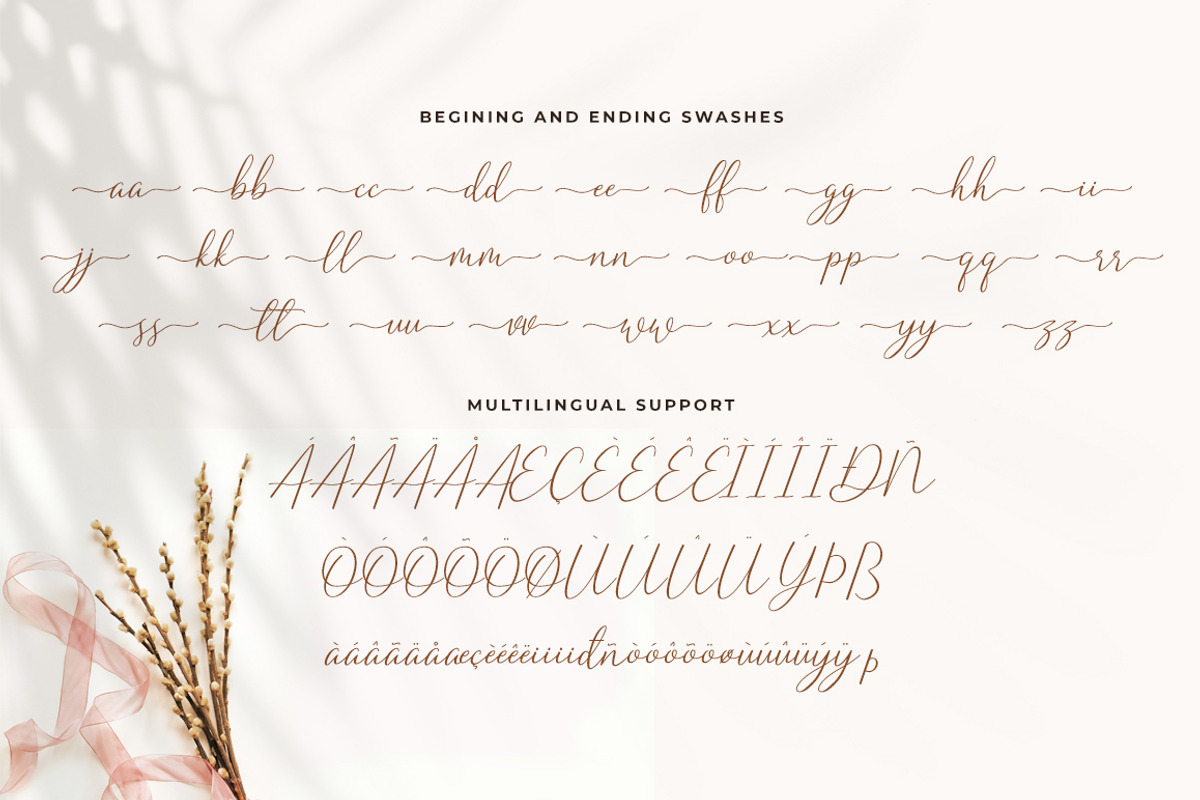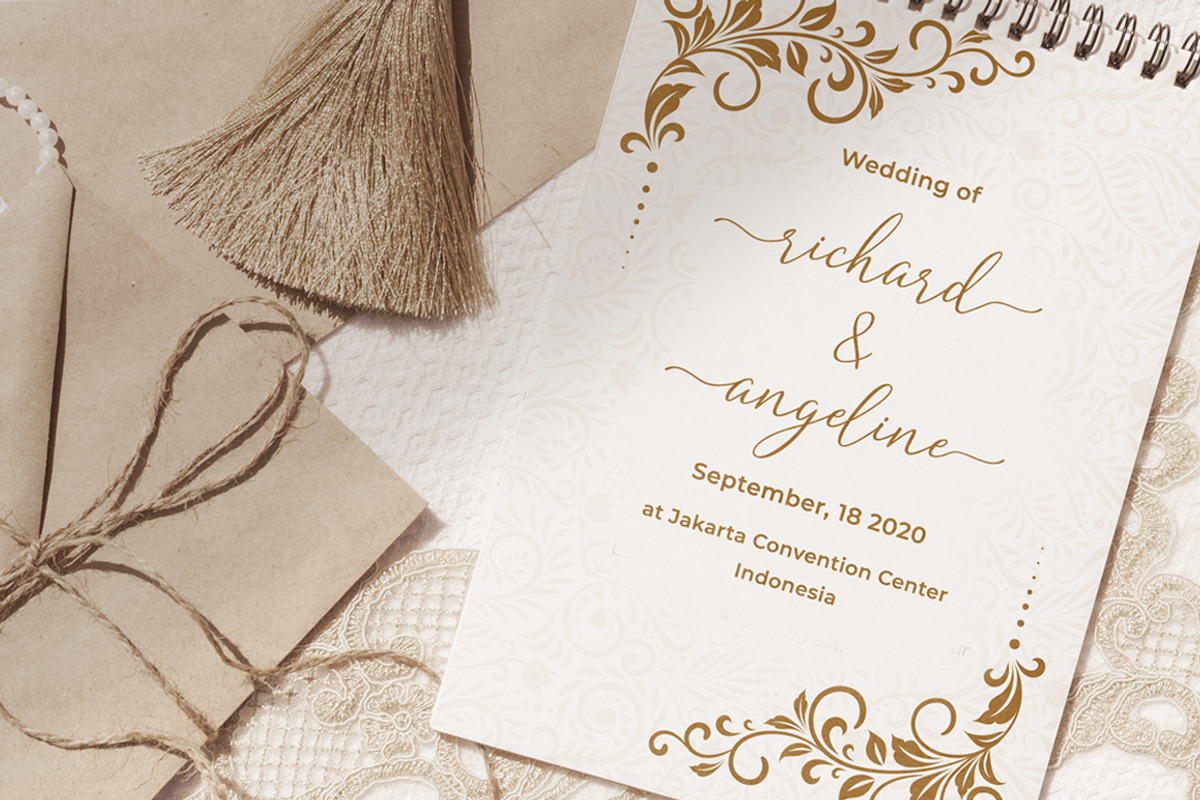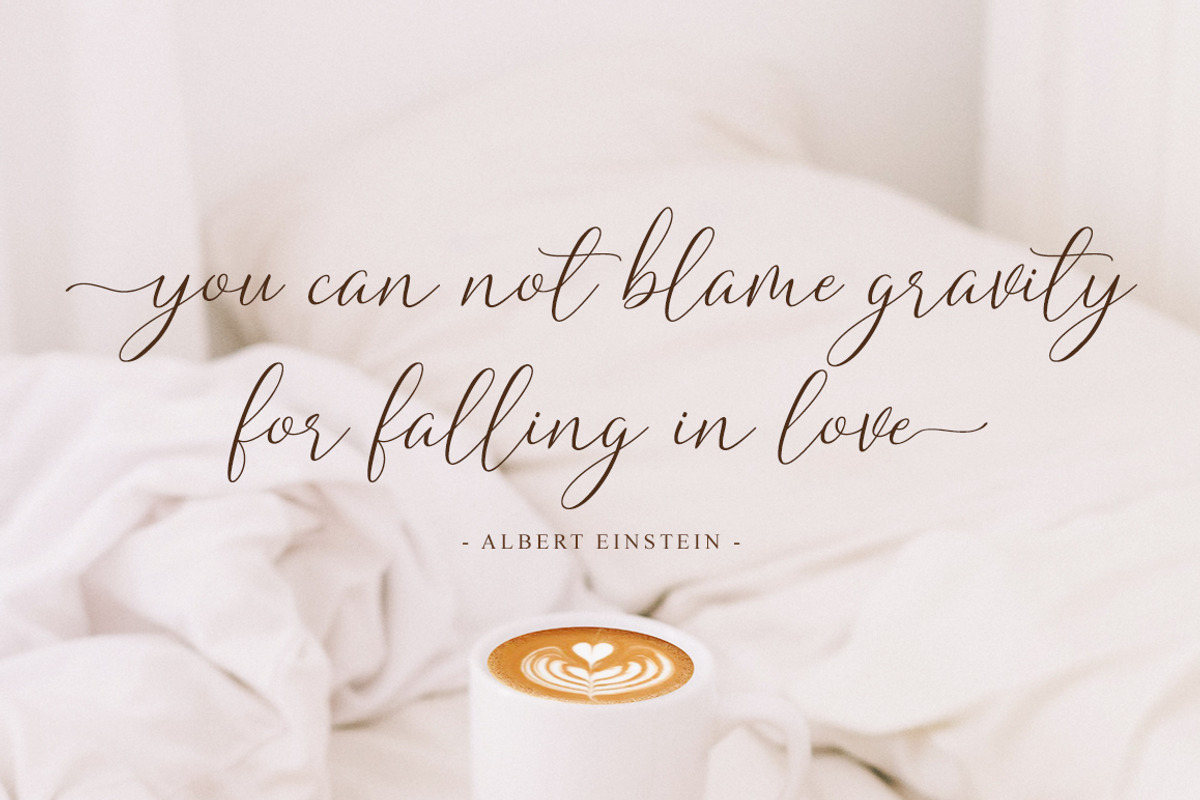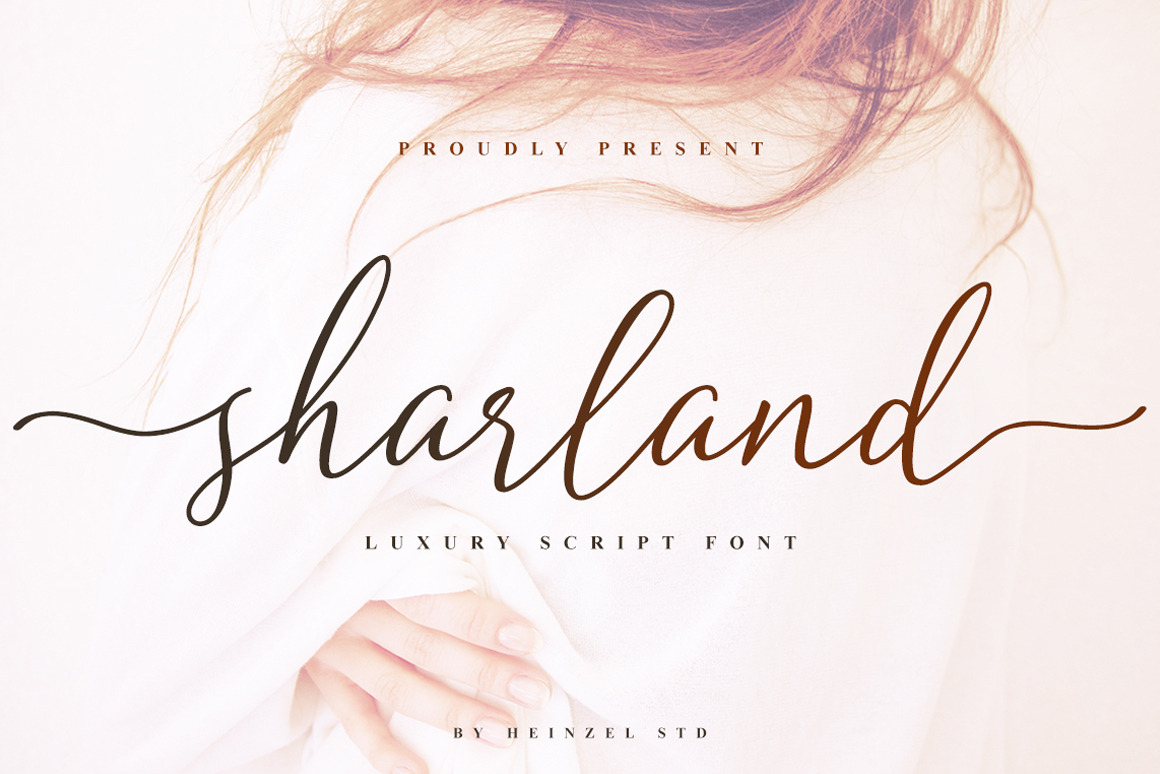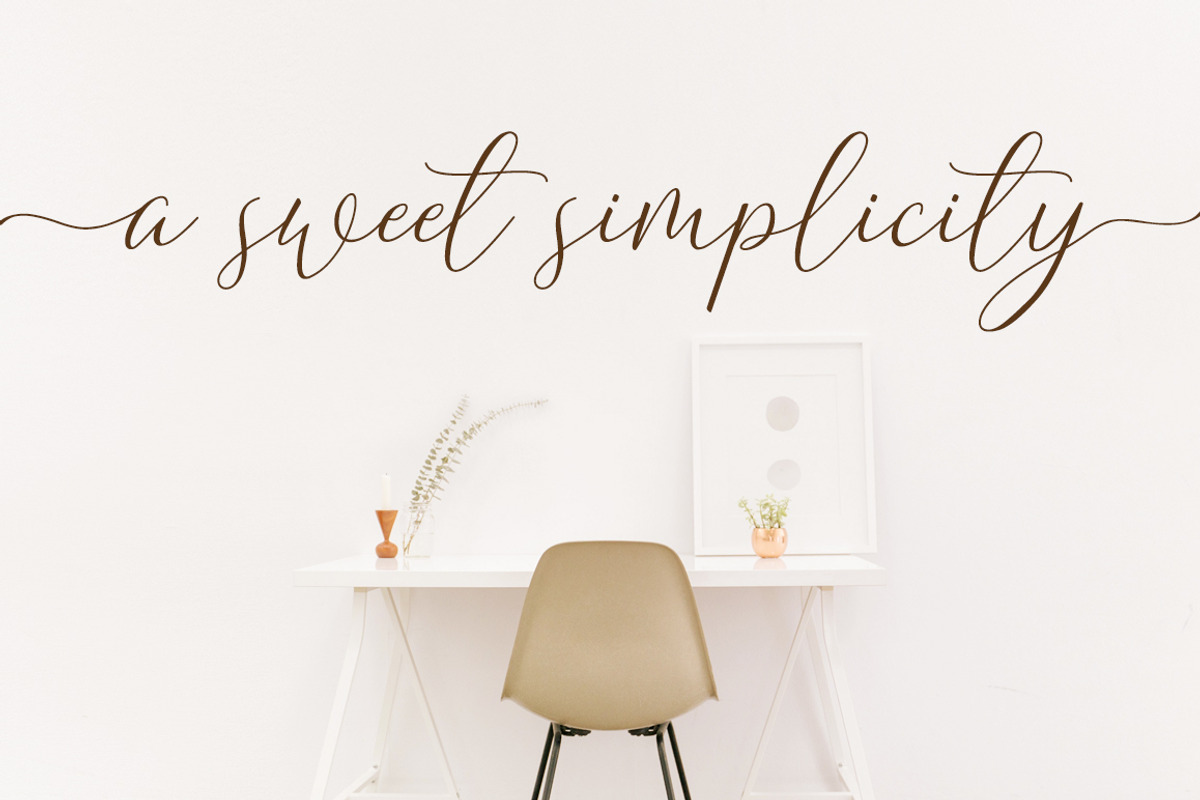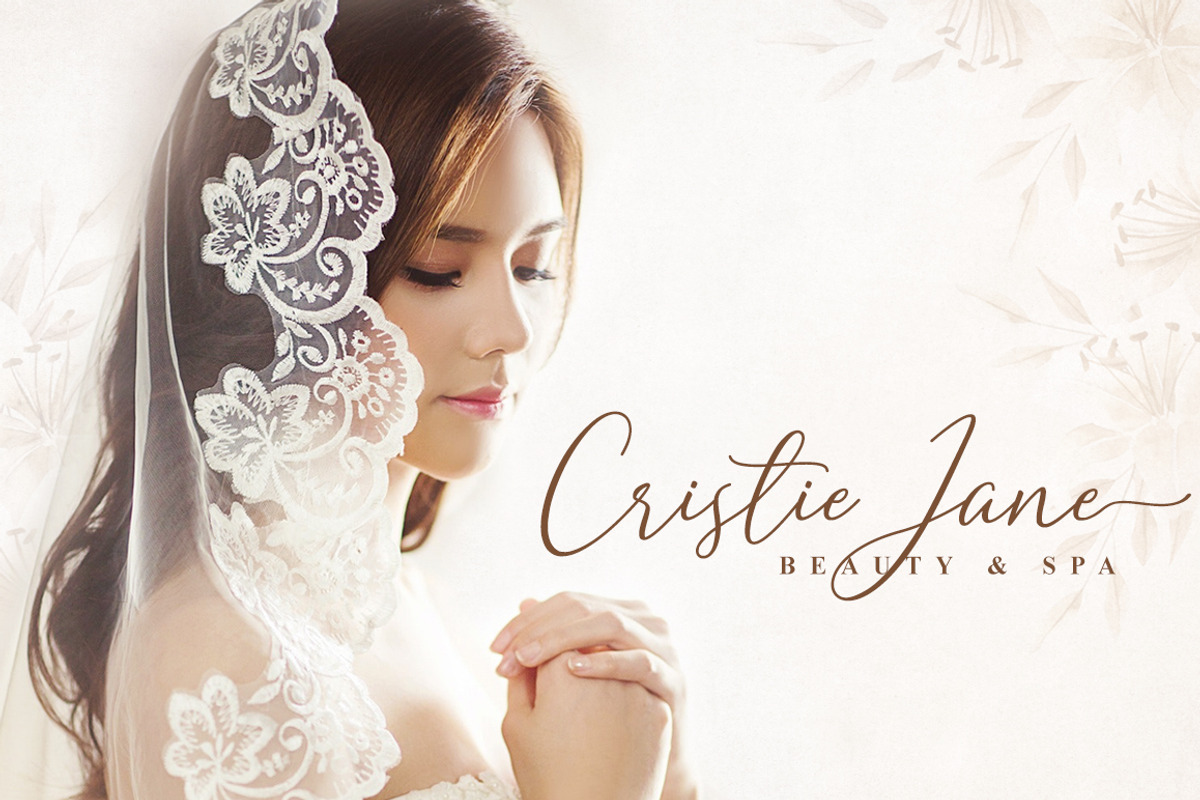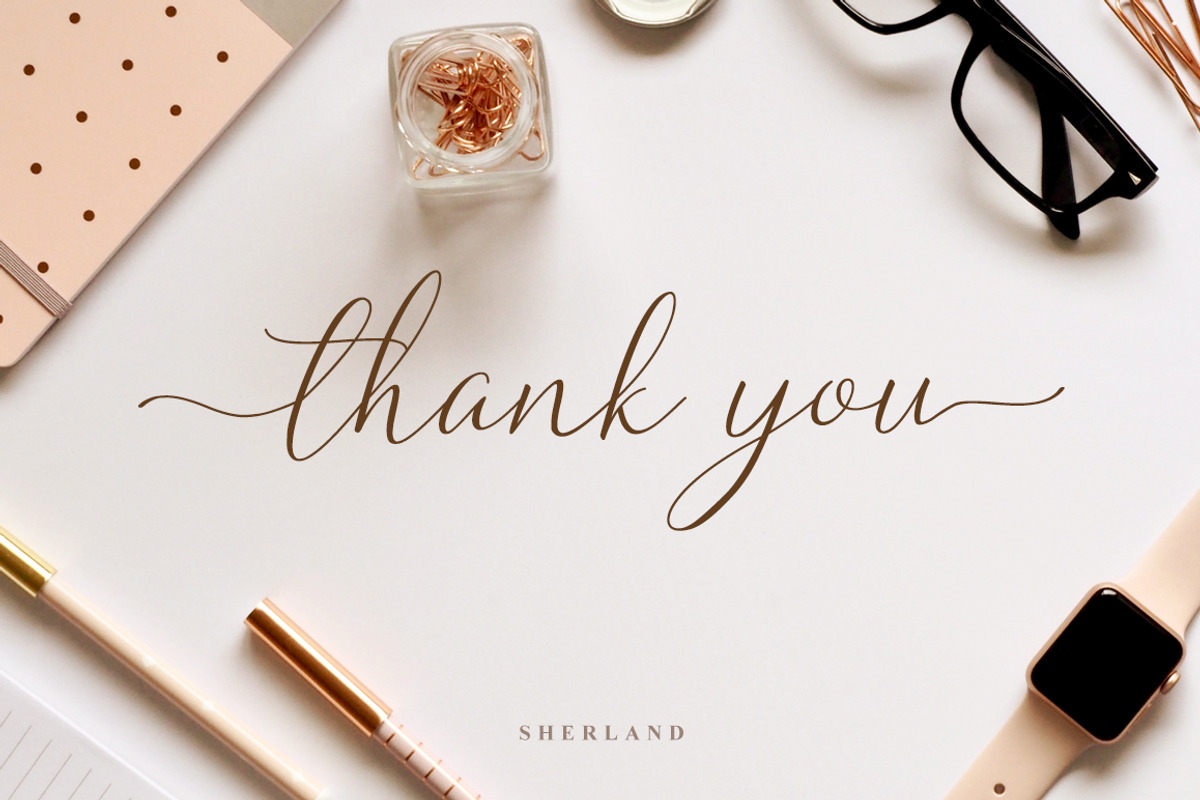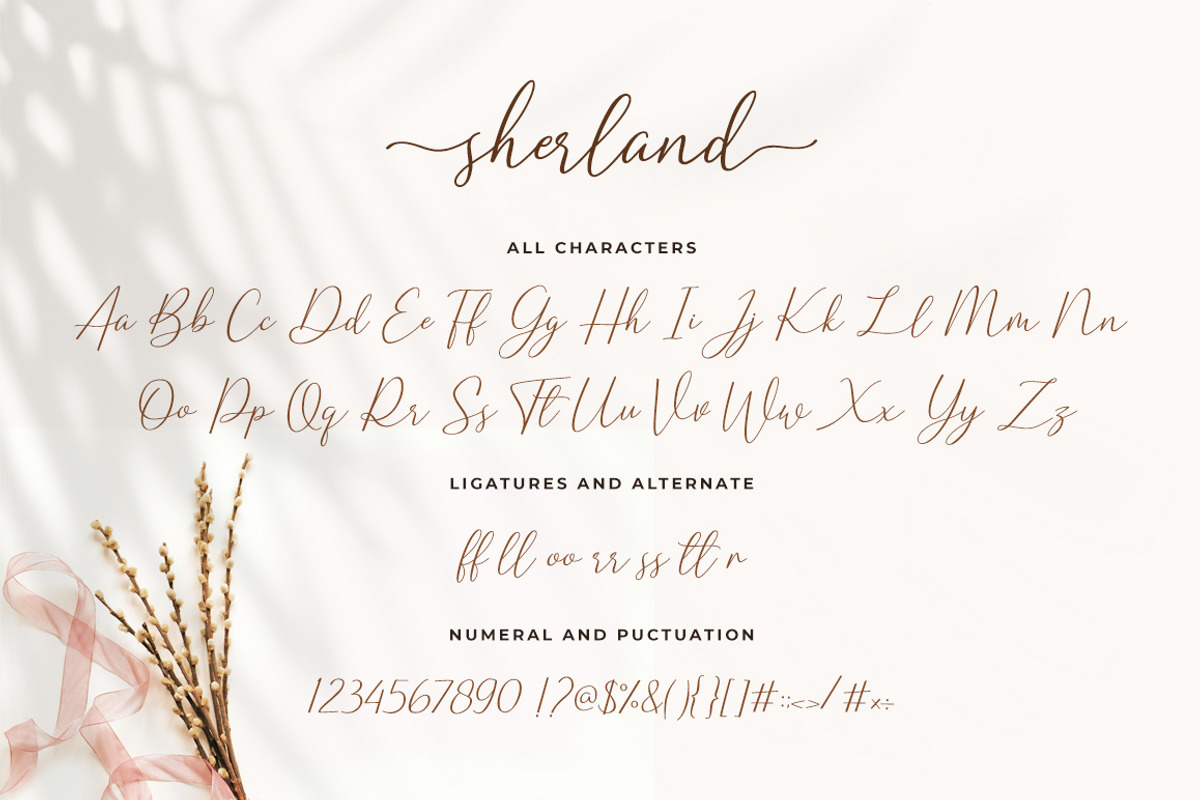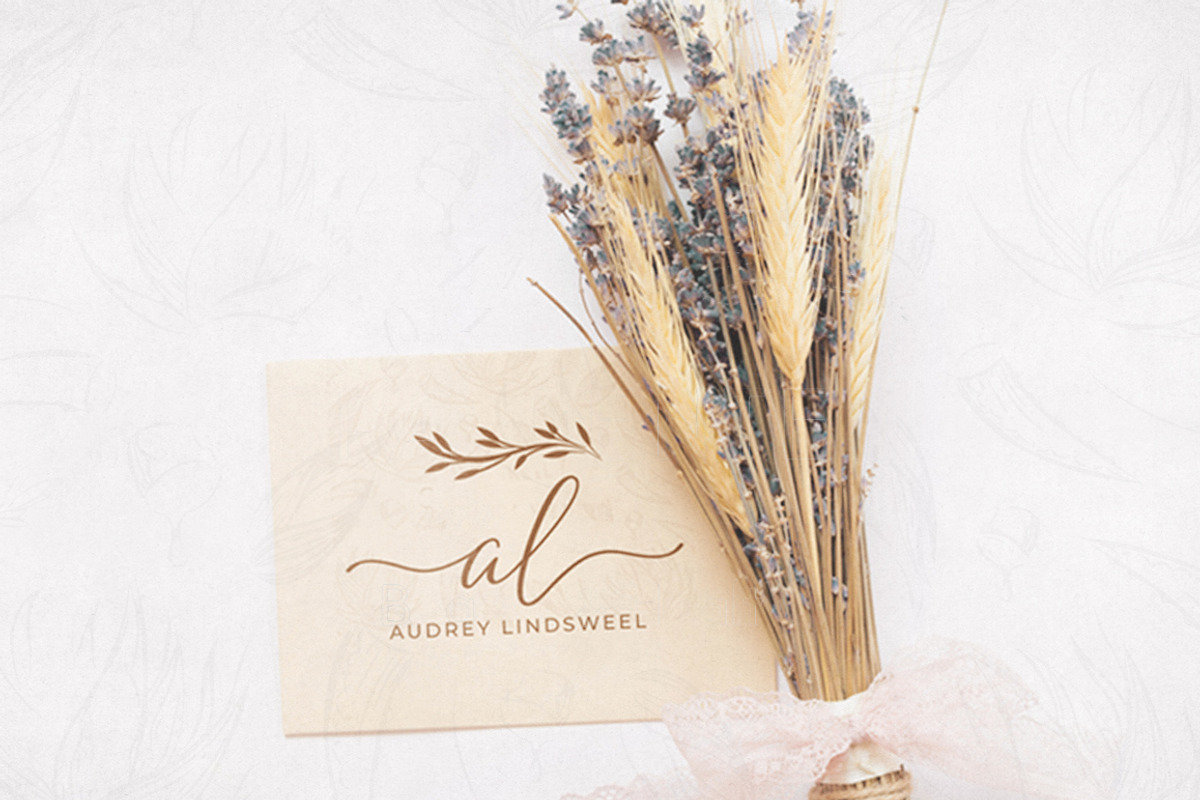
Sharland Luxury Script Font
Sharland – Luxury Script Font
Sharland is a luxury script font designed with elegant handwritten strokes and graceful curves that create a sophisticated and timeless appearance. This font delivers a modern calligraphy style that feels natural, classy, and highly versatile for premium branding projects. With its flowing letterforms and stylish swashes, Sharland is perfect for logos, wedding invitations, feminine branding, fashion editorials, beauty products, social media posts, packaging, and signature-style typography.
The smooth and refined characters give every design a luxurious touch while maintaining excellent readability. Sharland works beautifully for both large display titles and elegant supporting text, making it an ideal choice for designers who want to create romantic, stylish, and high-end visuals.
Whether you are building a luxury brand identity or designing aesthetic content for digital and print media, Sharland helps your work stand out with elegance and charm.
Ligatures and Alternates
Beginning and Ending Swashes